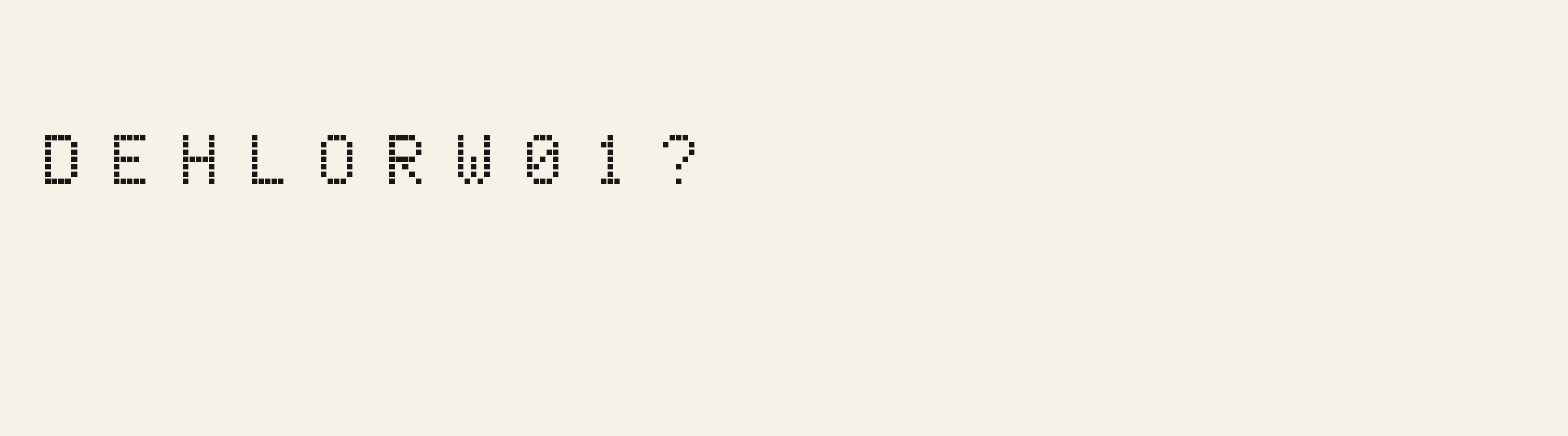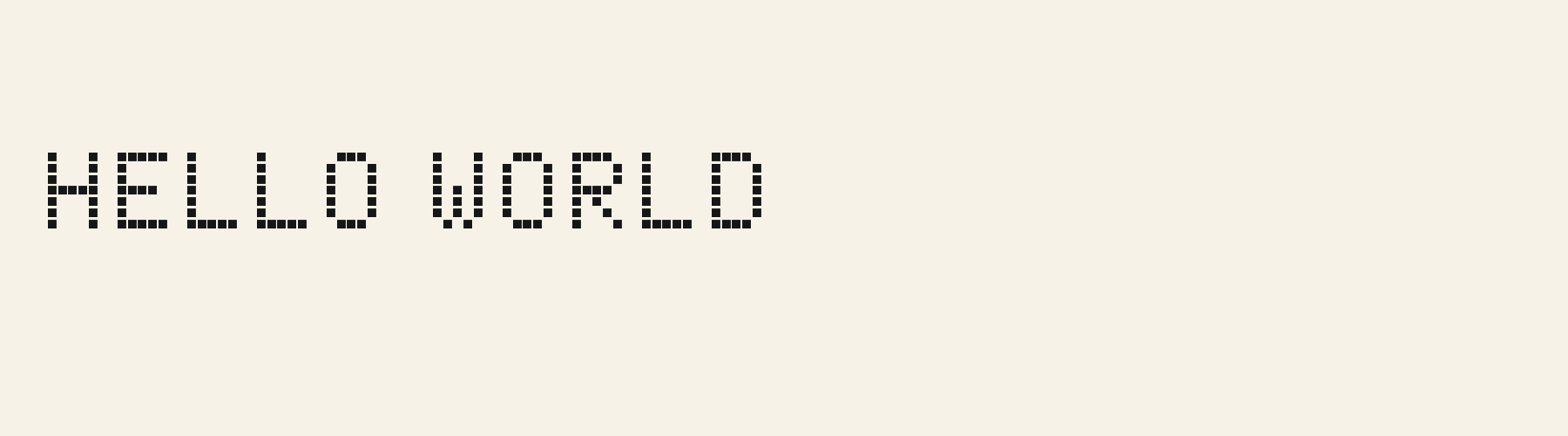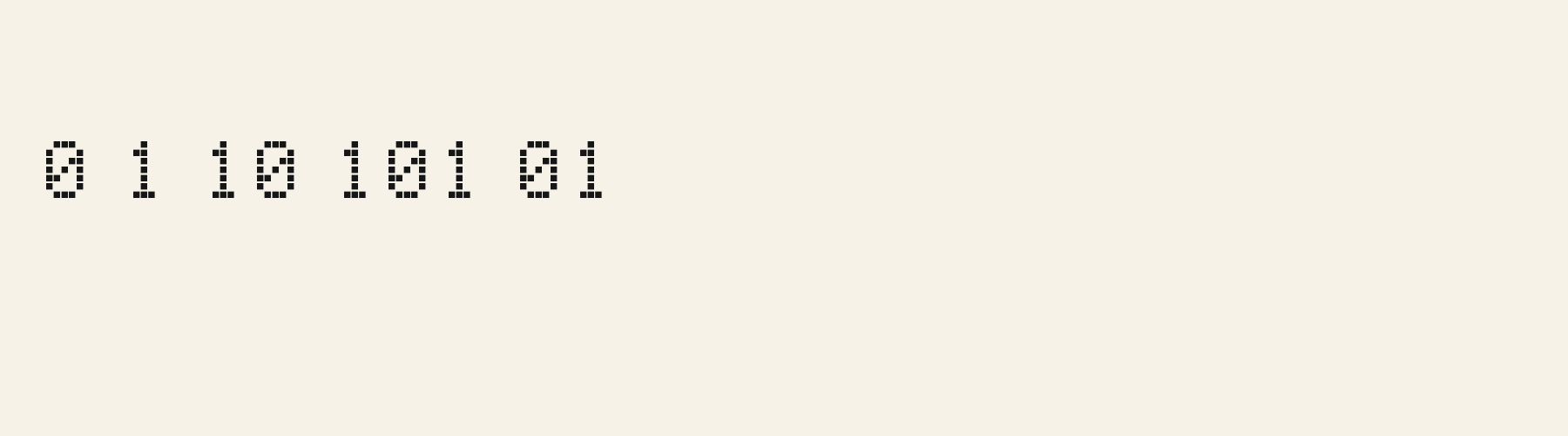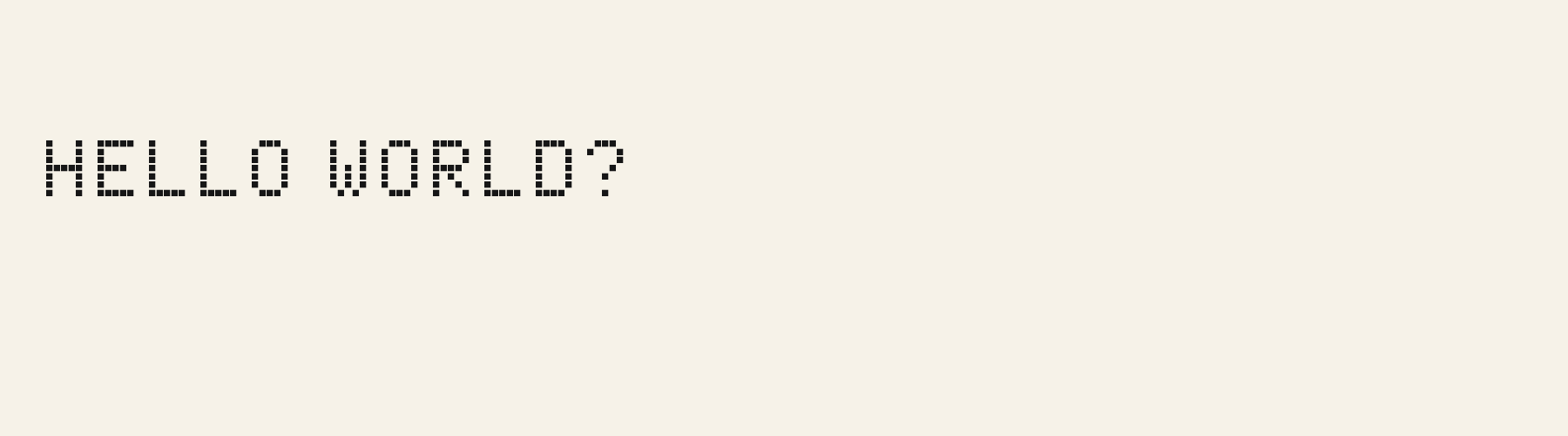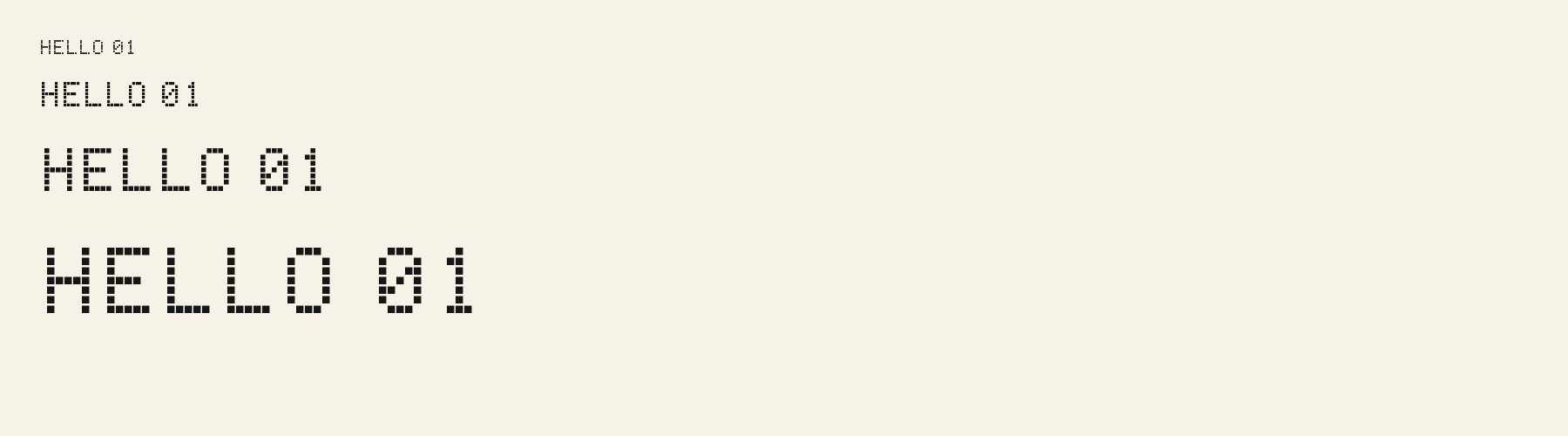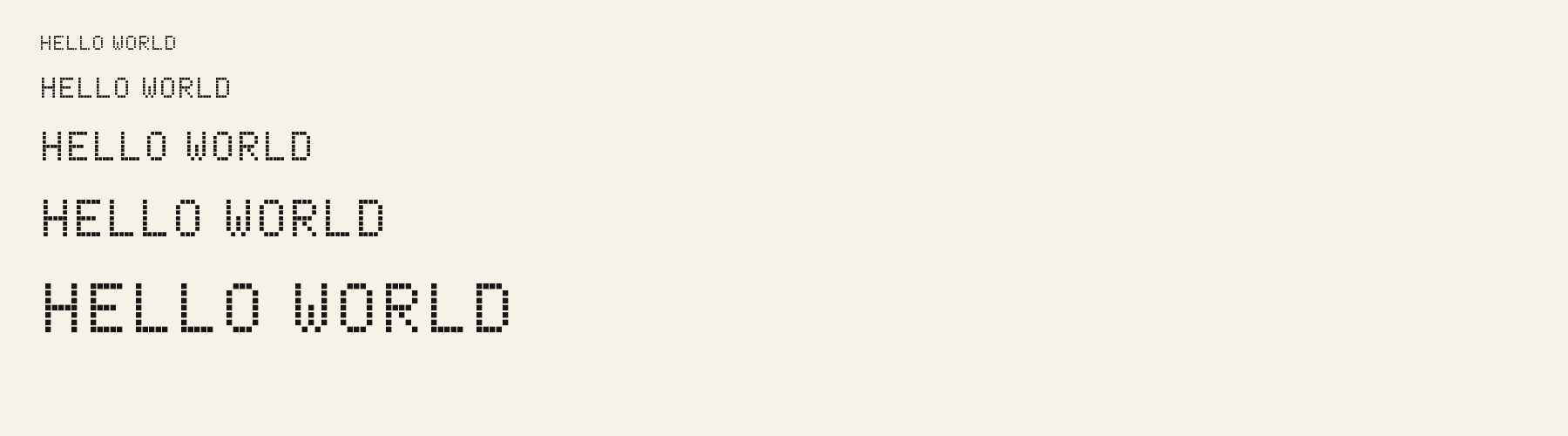
Pixel Console Square Twin Notch Arcade Font
Pixel Console Square uses separated square marks to give its upright letters a light, segmented outline.
Twin Notch Arcade Letterforms
Pixel Console Square uses separated square marks to give its upright letters a light, segmented outline. The O has straight sides, short flat caps and clipped corners around a tall open counter. The R carries an angular bowl above a leg that descends through isolated diagonal steps. In the W, long outer stems flank a shorter central upright, creating paired low points along the bottom. Even stroke weight and repeated gaps keep the surface crisp and restrained. The result feels like a quiet game status display, with enough open background to keep short wording visually spare.
Preview your actual Latin wording, checking the stepped R leg, clipped O corners and notched W. Compare punctuation and repeated letters after resizing or export, since module gaps shape their appearance. Assess any other script separately with its own specimen and coverage check.
Try this face for short headings or status labels, with a plain sans serif for supporting explanations. Its separated modules already add texture; a companion with continuous strokes could give the surrounding text a visibly different role.
Pixel Console Square: letterforms and layout
Compare smaller and larger previews, watching the gaps between individual modules and the descending steps of R. Check whether the question mark stays distinct and the separated blocks retain the texture you want in the final output.
Pixel Console Square breaks each stroke into visibly separated square modules. Its lighter outlines leave more background showing through the letters, giving short interface wording an airy, segmented texture.
Pixel Console Square font in use
PLAYER READY
Product label. Separated square strokes give a short status label a clear game interface character while keeping its visual weight light. EXTRA LIFE
Sticker. Angular outlines and repeated module gaps give this compact sticker phrase a crisp arcade texture. NEW QUEST
Website headline. The upright capitals and distinctive notched W give a short website heading a recognisable game display voice.
The scenes are illustrations drawn on this page with Pixel Console Square itself, not client work.
About Pixel Console Square
The lowercase is as tall as the capitals: its x-height measures 100% of the cap height, level with the tallest of the 13 pixel fonts. Ascenders on b, d, h, k and l line up with the capitals (100% of their height), and g, j, p, q and y barely drop below the baseline. It sets wide: an average lowercase letter, spacing included, is 91.9% as wide as the capitals are tall (an average capital, 91.9%), 13.3% more than the median for pixel fonts, so the same words take a longer line. The o is an upright oval, 0.65 times as wide as it is tall, and every capital has the same width. O stands exactly as tall as H and sits on the baseline, with no overshoot.
The letters stand upright, leaning less than 2.5° either way. Vertical stems measure 11.3% of the cap height, lighter than 5 of the 6 other pixel fonts. Ink covers 22.1% of each lowercase letter's box (its advance width by the cap height), lighter than 9 of the 12 other pixel fonts. Strokes keep one thickness in every direction: the sides of o and O measure the same as their tops and bottoms.
Its 159 characters include 116 Latin letters, plus 43 figures, punctuation marks and symbols; 64 of the Latin letters are accented or special forms beyond A to Z. The word space measures 47.8% of the cap height, and the blank space either side of a lowercase letter takes up 29.3% of its width. The font carries no kerning, so spacing comes from each letter’s own side bearings. All ten figures share one width, so columns of numbers line up.
- What fonts pair well with Pixel Console Square?
- Halo Light (sans serif), Geo Diagonal Aperture (sans serif) and Bubble Sticker Smile (display) are drawn on a different letter structure, so Pixel Console Square can carry the headings while one of them sets the text. Each has its own page with a type tester for trying the pair.